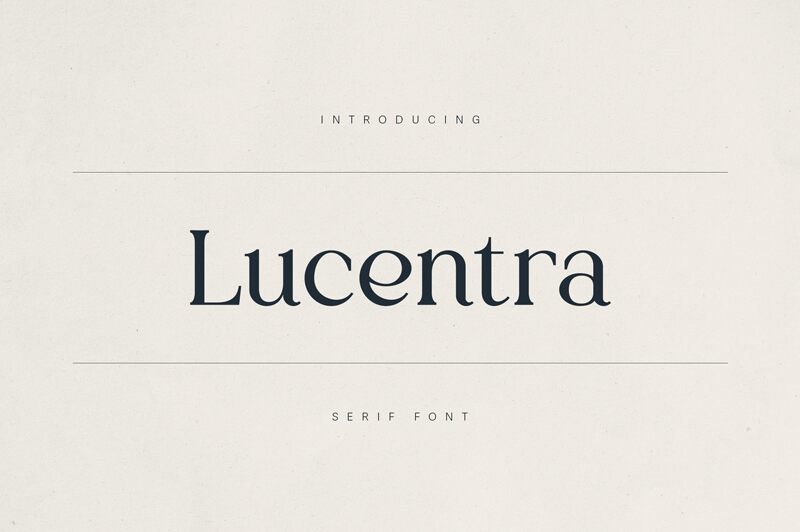
Lucentra Regular
Lucentra font by VPcreativeshop is a free serif font that feels both poised and quietly dramatic. Its letters are tall and refined, with graceful curves that taper into crisp, inky edges, giving every word a composed, literary presence. The spacing feels thoughtfully restrained, so headlines look polished rather than shouty, like a well-edited page from a classic book.
Using Lucentra, you get a serif that shines on editorial covers, book titles, boutique branding, invitations, posters, and minimalist packaging. This free font carries a subtle formality that suits anything thoughtful, poetic, or high-end. For a simple pairing, set Lucentra for titles and combine it with a clean geometric sans at smaller sizes to keep layouts airy and contemporary.